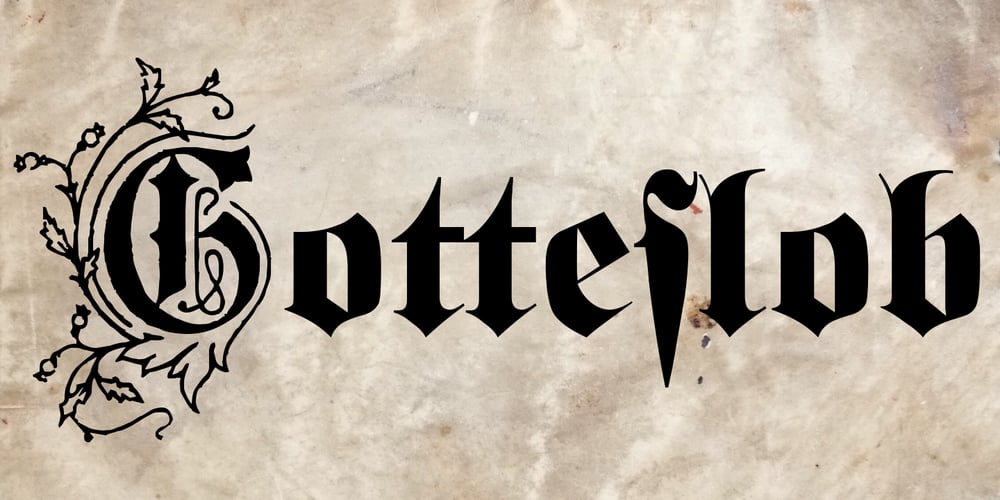
Gotteslob
Gotteslob font
Gotteslob Font Family was designed by Paulo W and published by Intellecta Design. Gotteslob contains 1 styles and family package options. A blackletter with nice decorated initials, perfect to titling and fancy jobs.